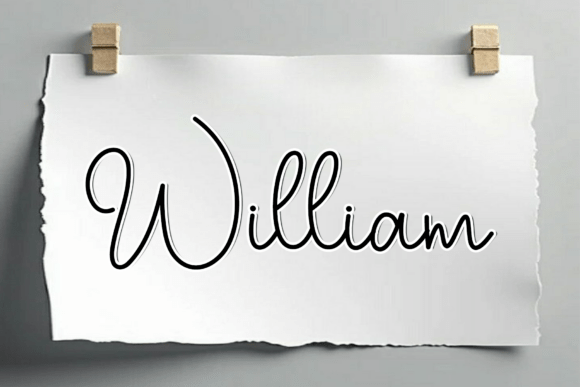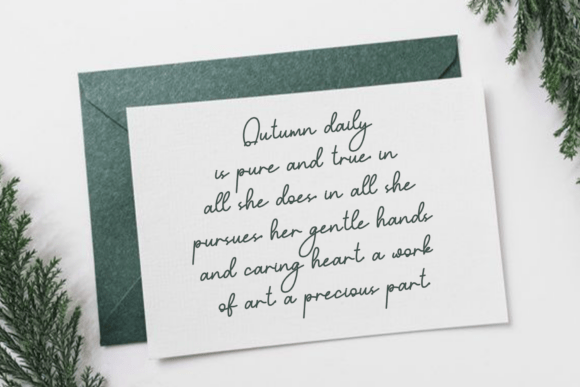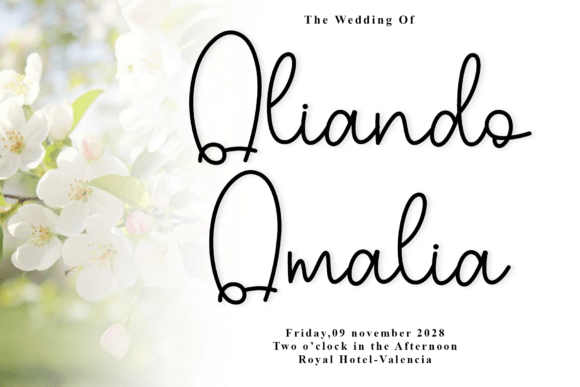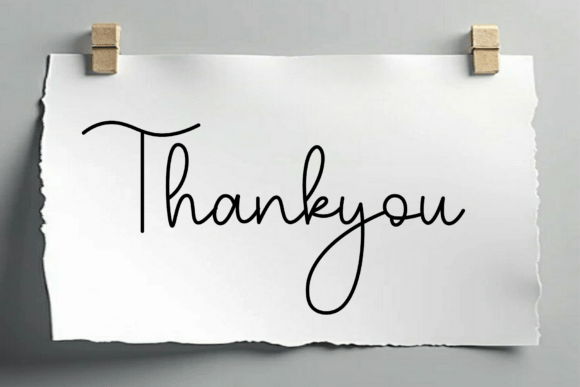
Amoeba Font: The Timeless Handwritten Font for Stunning Designs
Are you a designer or crafter looking for a font that can add a touch of elegance and sophistication to your designs? Look no further than the Amoeba Font! This lovely and timeless handwritten font is perfect for creating eye-catching logos, branding, and quotes that will leave a lasting impression on your audience.
What makes Amoeba Font special?
Amoeba Font is a unique and beautiful font that stands out from the crowd. Every letter has a distinct and elegant touch that will make your design come alive! The font’s handwritten style gives it a personal and organic feel, making it perfect for designs that require a human touch.
When it comes to creating logos and branding materials, the font you choose can make all the difference. Amoeba Font is an excellent choice for several reasons:
- Unique and Memorable: The font’s unique and elegant style makes it perfect for creating memorable logos and branding materials that will stand out from the competition.
- Versatile: Amoeba Font can be used for a wide range of designs, from elegant and sophisticated to playful and creative.
- Scalable: The font is highly scalable, making it perfect for use on various platforms, from business cards to billboards.
Ideal for Quotes and Typography
Amoeba Font is not just limited to logos and branding; it’s also perfect for creating stunning quotes and typography designs. The font’s elegant style makes it ideal for:
- Inspirational Quotes: Add a touch of elegance and sophistication to your inspirational quotes and make them more impactful.
- Typography Art: Create stunning typography art pieces that will showcase your creativity and skill.
- Social Media Graphics: Use Amoeba Font to create eye-catching social media graphics that will grab the attention of your audience.
Why Choose Amoeba Font?
With so many fonts available, why choose Amoeba Font? Here are a few reasons:
- High-Quality: Amoeba Font is a high-quality font that is designed to deliver exceptional results.
In conclusion, Amoeba Font is a timeless handwritten font that is perfect for designers and crafters looking to create stunning designs. Its unique and elegant style makes it ideal for logos, branding, quotes, and typography designs. With its high-quality and ease of use, Amoeba Font is an excellent choice for anyone looking to add a touch of sophistication and elegance to their designs.